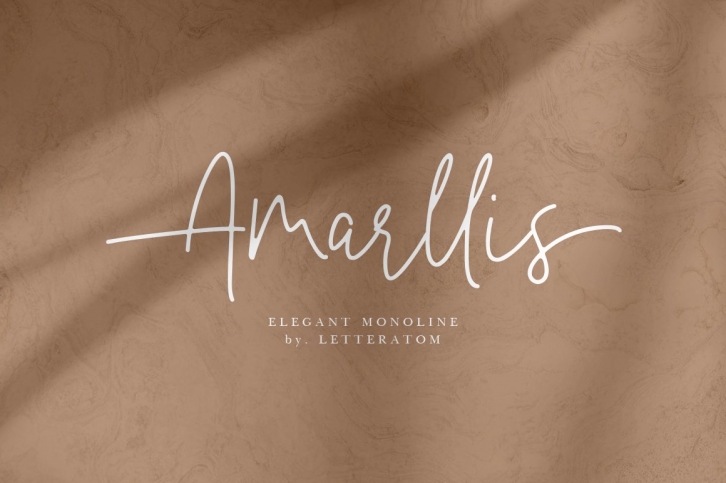
Amarllis is a gorgeous font that was realeased on April 7, 2021. The font can be used in many style contexts and design environments. Perfect for invitations, magazines, websites, logos, and more! It was designed by Letteratom and the file size is 5.60 MB. Thanks for checking out this font!